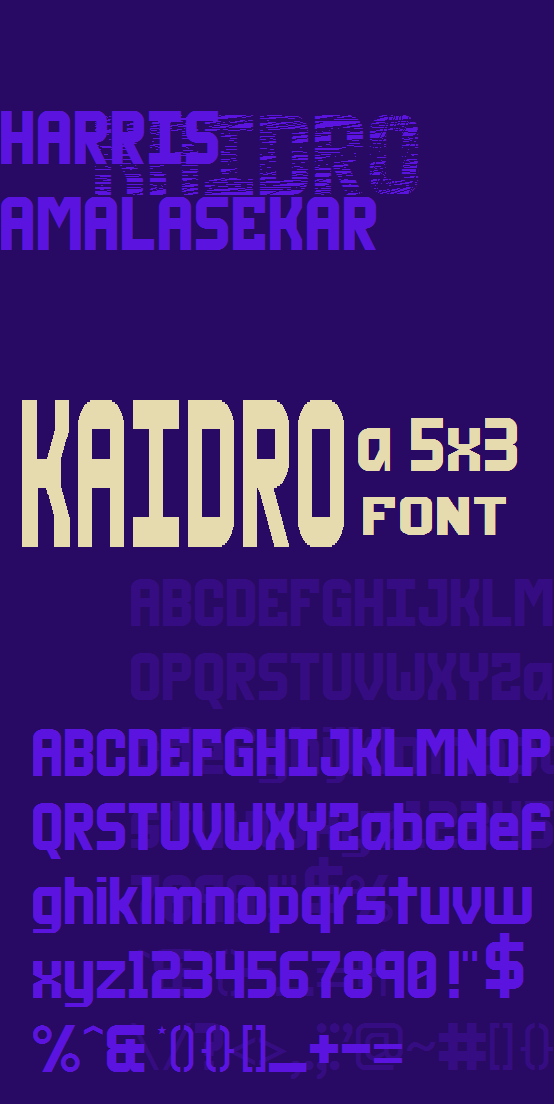
How dya like that font Sorry the 'M' kinda gone off
I like it.  I would personally make the cross vertical spine of the z bolder & bold up the x (shorter white space lines); or make the cross vertical spine of the N less bold, but this is excellent.  Maybe bold up the rest of the puntuation?
Are you sure there is nothing wrong with both colon & semicolon? ;)
I don't think these should exceed the x-height, yours is equal to the cap height.
Everything else more or less was already covered by SymbioticDesign, but apart from these minor inconsistencies not a bad first font